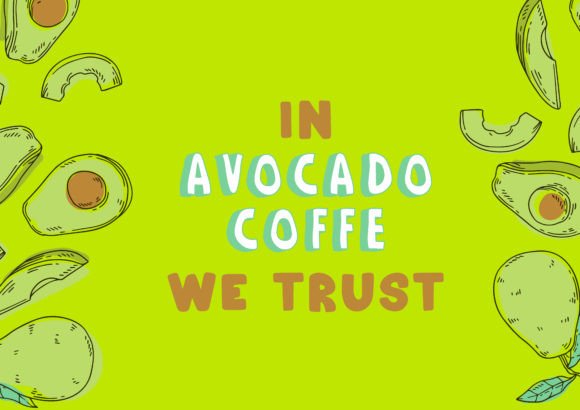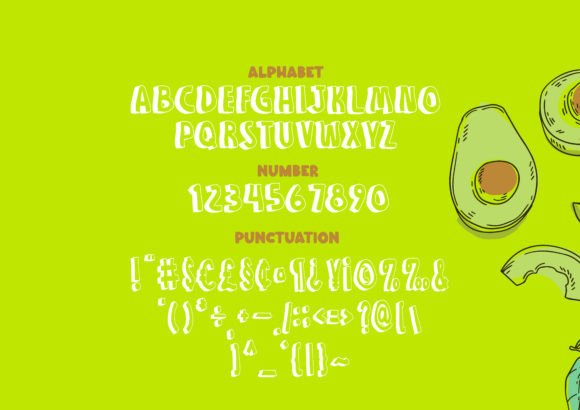
The Font that Spreads Joy: Good People Font
Have you ever been browsing through a design project and stumbled upon the perfect font to bring your idea to life? For me, that moment came when I discovered the Good People Font. It was as if the universe had conspired to bring me exactly what I needed – a whimsical, hand-crafted display font that perfectly captured the essence of childlike wonder.
Good People Font is a delightful, outlined display font that’s tailor-made for projects that require a touch of magic. Whether it’s a children’s book, a cute quote, or a design that needs to evoke a sense of playfulness, this font is the perfect companion. As a designer, you’ll appreciate the versatility and charm that Good People Font brings to your work.
With its unique, hand-crafted feel, Good People Font is a valuable addition to any designer’s toolkit. Its simplicity and elegance make it an excellent choice for a wide range of projects, from branding to editorial design. In this article, we’ll dive deeper into the world of Good People Font and explore its many uses and benefits.
Good People Font Key Features
- Unique Characteristics: This font features a unique, hand-drawn style with subtle imperfections, giving it a human touch and making it perfect for creative and artistic projects.
- Language Support: Good People Font supports a wide range of languages, including Latin, Cyrillic, and Greek alphabets, making it suitable for international designs.
- Kerning and Ligatures: The font includes advanced kerning and ligature features, ensuring that letters and letter combinations are properly spaced and look great together.
Good People Font Review
First off, I really like the friendly vibe of the Good People Font. The font ✨ seems to radiate warmth and approachability, making it perfect for designs that need to feel welcoming and inclusive. The rounded edges and smooth curves of the font make it a great choice for titles, headings, and other display text.
One of the things that really stands out about Good People is its ✨ versatility. It’s a great choice for a wide range of projects, from children’s books and educational materials to branding and advertising campaigns. The font also comes in a variety of weights, making it easy to create visual hierarchy and emphasize important information.
However, there are a few limitations to the Good People Font that are worth noting: ⚠️ the font can feel a bit generic and overused in certain contexts, and the letterforms can be a bit tricky to read at very small sizes. Additionally, the font may not be the best choice for projects that require a lot of technical or scientific information, as the font’s rounded edges can make it difficult to distinguish between similar characters.
Rating
- Overall Rating: 4/5
- Recommendation: Suitable for projects that require a friendly and approachable tone
- Best for: Children’s books, educational materials, branding and advertising campaigns
- Not recommended for: Projects that require technical or scientific information, or projects that need a very modern or edgy look
The “Good People Font” is ideal for creating friendly, approachable content, such as:
- Blog posts and articles
- Social media graphics and posts
- Personalized invitations and cards
For optimal results, pair the “Good People Font” with complementary colors and imagery to create a cohesive and engaging visual identity.
What is the recommended font size for the Good People Font?
The recommended font size for the Good People Font is between 12pt and 24pt. This range provides optimal readability and clarity for body text, while also being suitable for headings and titles. However, feel free to experiment with different font sizes to find the perfect fit for your design project.